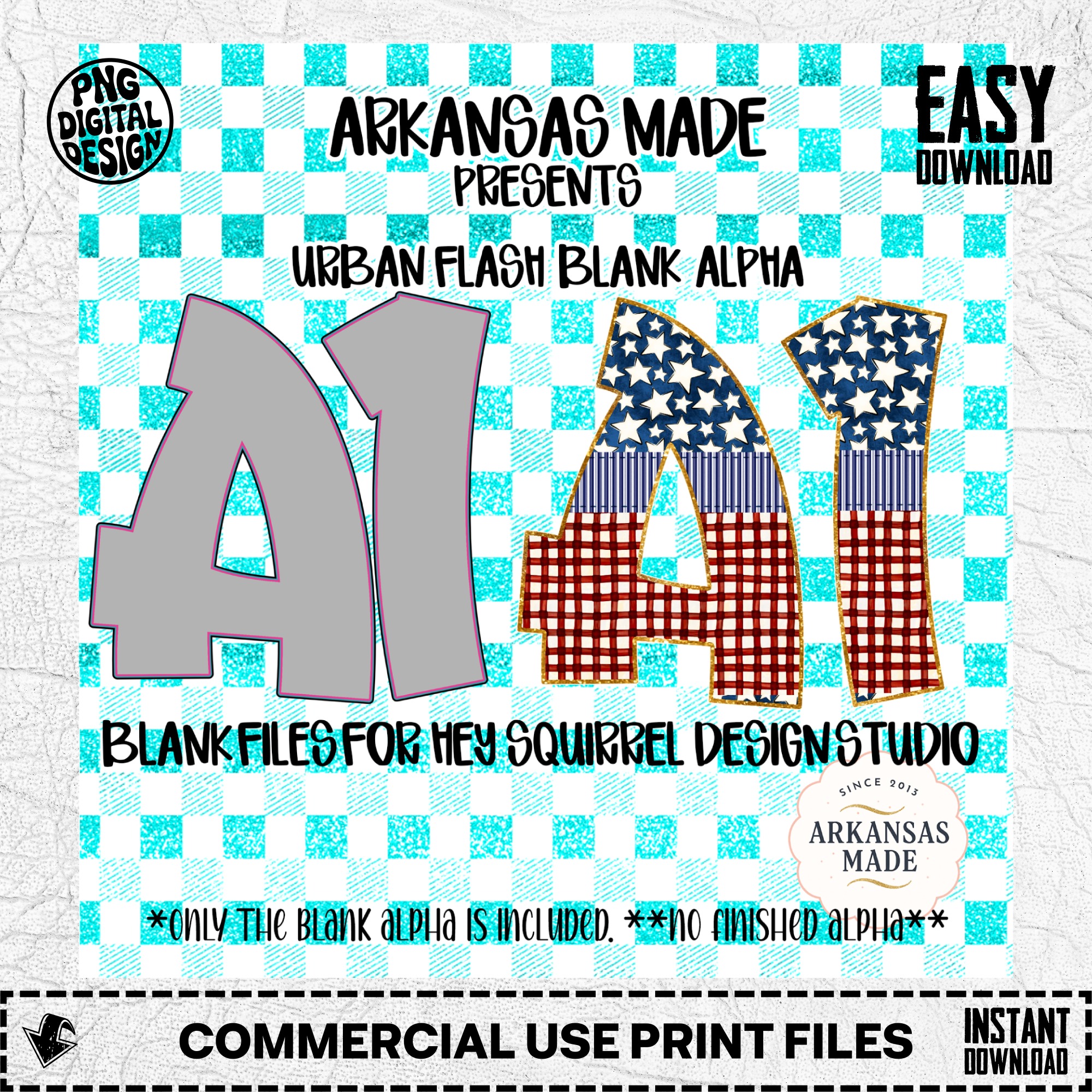
Unlock endless creativity with this Urban Flash Blank Alpha PNG set, specifically designed for Hey Squirrel Design Studio. Perfect for sublimation and graphic design projects! This versatile blank alphabet empowers crafters, small business owners, and digital artists to personalize their creations with ease. Fill these bold letters with any pattern or texture to match your unique style, from patriotic pride to trendy designs. Ideal for creating custom apparel, tumblers, decals, and more for yourself or as thoughtful gifts.